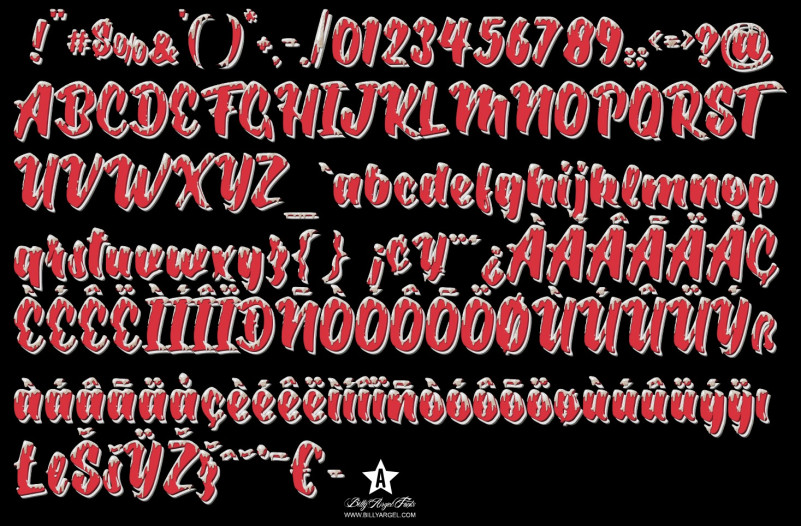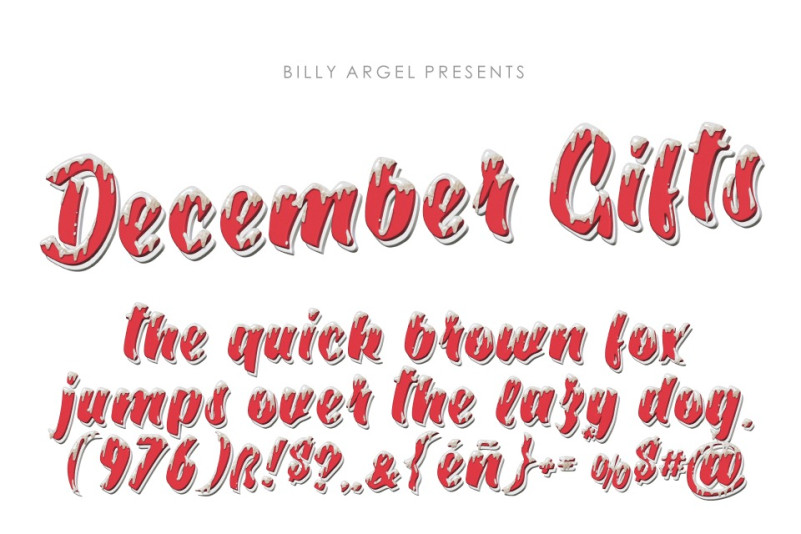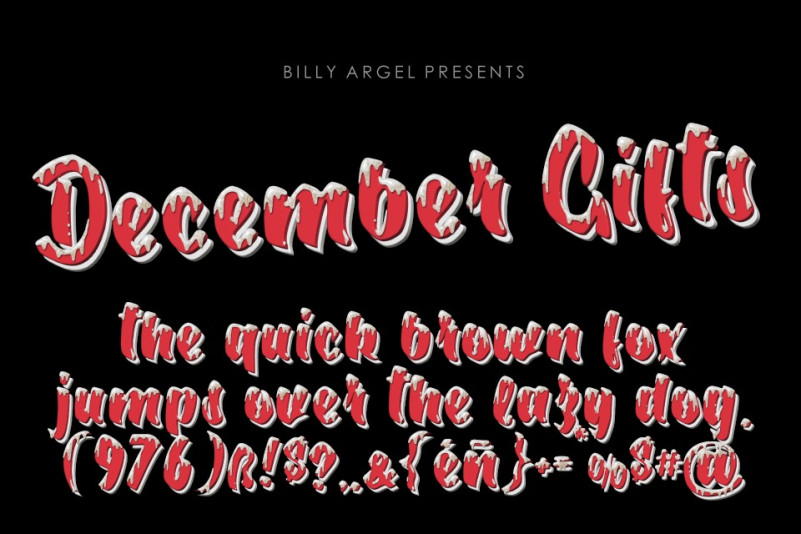
December Gifts Font
December Gifts Display Font, snow and ice style gift display font suitable for Christmas, this file allows incorporation in PDF and the standard license is for corporate and personal identities, watermarks, logos, merchandise, promotional items, monetization of videos and YouTube channels, collections of clothing, t-shirts, portfolios, crafts, layouts, CDs, labels, etc …